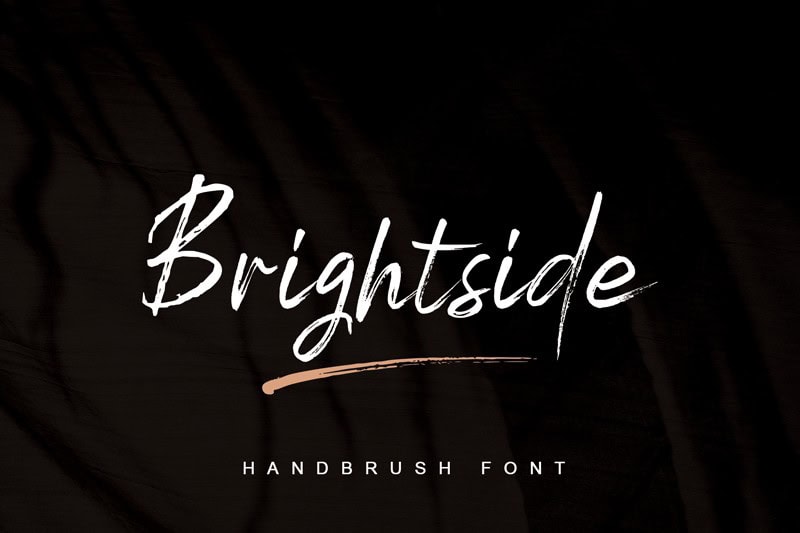
brightside
Unleash Creativity with Brightside Font
Brightside Font, crafted by John Smith in 2020, showcases a whimsical design that instantly attracts attention. With its playful curves and lively character forms, this font is ideal for children’s books, educational materials, posters, and any design needing a touch of fun and creativity.
The Inspiration Behind Brightside Font
Inspired by childhood dreams and a love for vibrant designs, Brightside Font reflects a carefree and cheerful spirit. Its unique characteristics make it an excellent choice for projects that aim to engage a younger audience or evoke nostalgia.
Best Uses for Brightside Font
Brightside Font shines in applications such as playful logos, educational content, party invitations, and product packaging. Its vivid personality ensures that designs resonate emotionally, making it a favorite for creatives seeking a standout typeface.